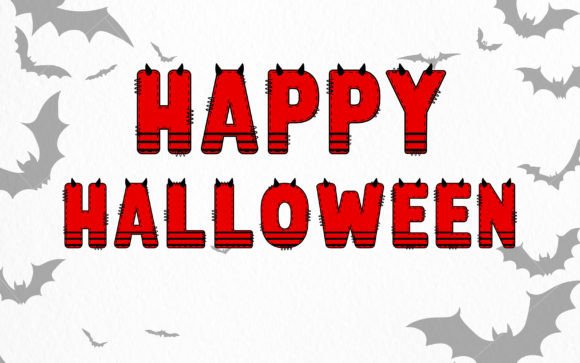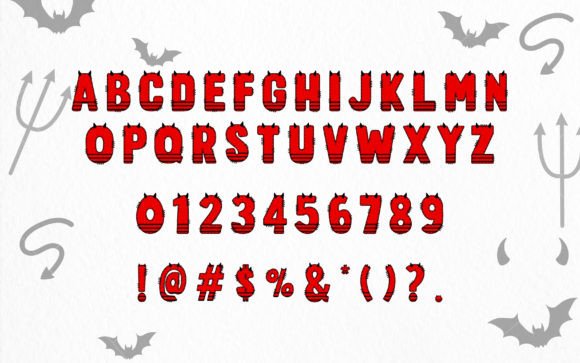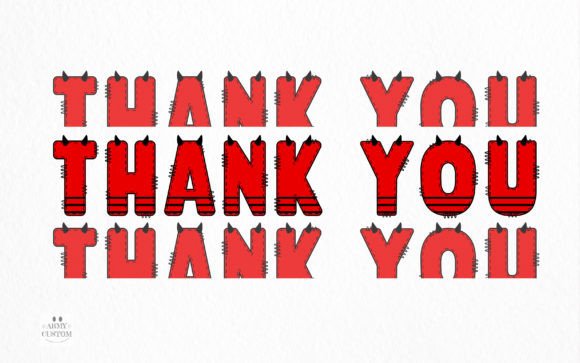
Introduction to Devil Army Font
As you sit down to work on your latest creative project, you’re hit with a wave of excitement and possibility. You’ve got a vision in mind, but something’s missing – a spark that will set your design apart from the rest. That’s where the Devil Army Font comes in, a spellbinding and distinct Halloween Doodle Font Color that’s sure to add an unmistakable touch of magic to your creations.
Whether you’re a seasoned designer or a crafty enthusiast, this versatile font is a valuable resource that will elevate your projects to the next level. With its high-quality design and transparent background, it’s the perfect addition to any creative endeavor, from scrapbooking to blog banners and beyond. And the best part? It’s available for free download, making it an accessible and affordable design resource for all.
So why settle for ordinary when you can have extraordinary? With the Devil Army Font, you’ll be able to create truly unique and captivating designs that will leave a lasting impression on your audience. Get ready to unleash your creativity and take your designs to new heights with this enchanting font.
Key Features of Devil Army Font
- High-quality font designed for creative projects, ideal for use in graphic design, digital art, and typography.
- Features a unique, bold design with a transparent background, allowing for seamless integration into various backgrounds.
- Perfect for use in various creative projects, including posters, flyers, business cards, and more.
Honest Review: Devil Army Font
I recently stumbled upon the Devil Army Font while searching for a unique design resource for a creative project. I was pleasantly surprised to find that it’s available for free download, which is a huge plus. The font itself has a high quality feel to it, with bold and edgy lines that make it perfect for designs that need a bit of an edge.
One of the standout features of the Devil Army Font is its transparent background, which makes it easy to place on top of other design elements. This versatility makes it a great addition to any designer’s toolkit.
- High-quality design with bold and edgy lines
- Transparent background for easy placement
- May not be suitable for more conservative or traditional designs
- Limited character set, may not include all necessary symbols
Overall, I’m impressed with the Devil Army Font. While it may not be suitable for every project, it’s a great addition to any designer’s toolkit for those creative projects that need a bit of an edge. With its high-quality design and free download, it’s definitely worth checking out.
Use Devil Army Font in combination with other design elements to create a unique and eye-catching design. Experiment with different font sizes, colors, and styles to achieve the desired effect. The font’s high-quality design makes it perfect for a wide range of creative projects, from logos to brochures.
Devil Army Font is commonly used in creative projects that require a bold and edgy design. It’s perfect for logos, posters, flyers, and other marketing materials. The font’s free download option makes it an accessible design resource for anyone looking to create a high-quality design.